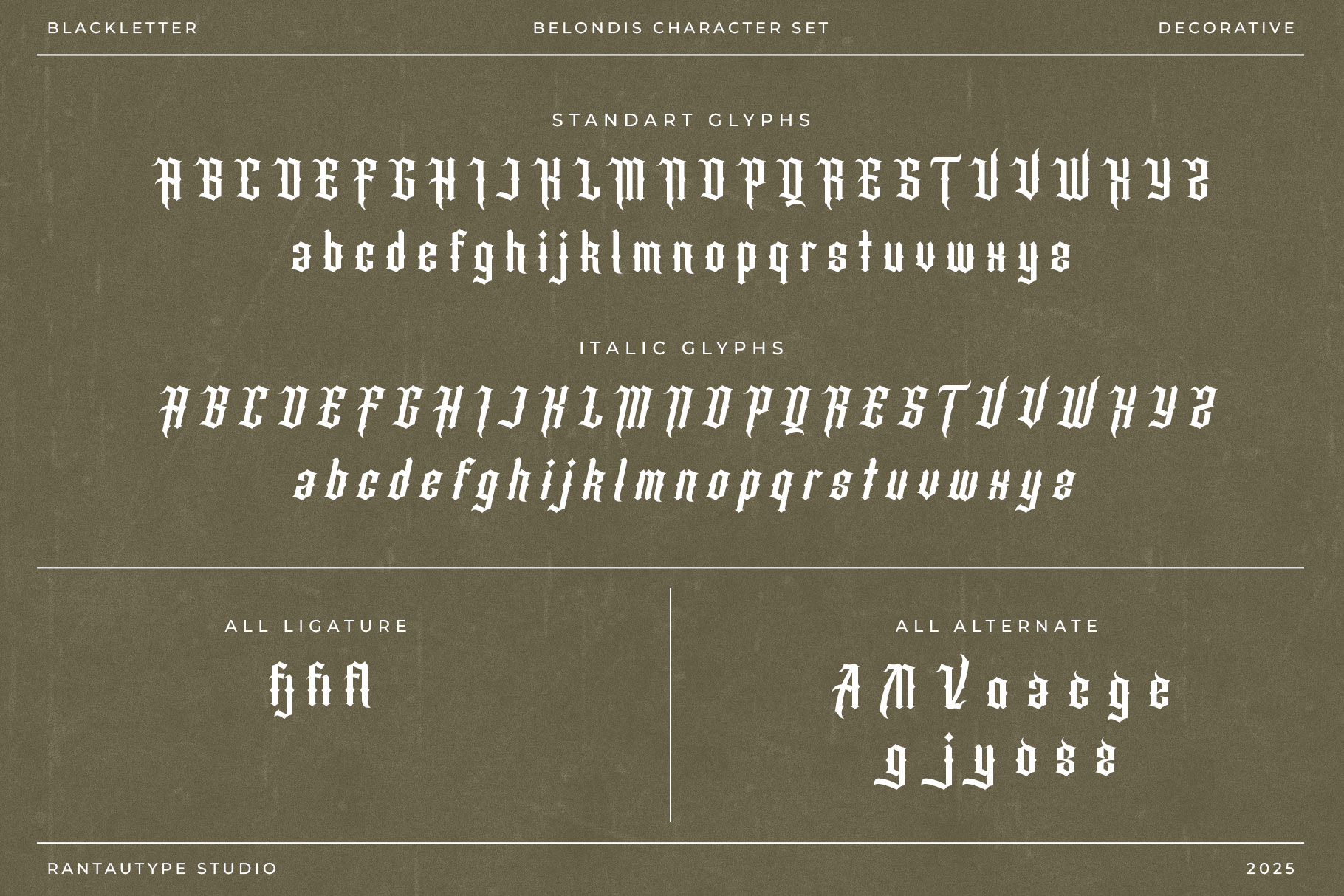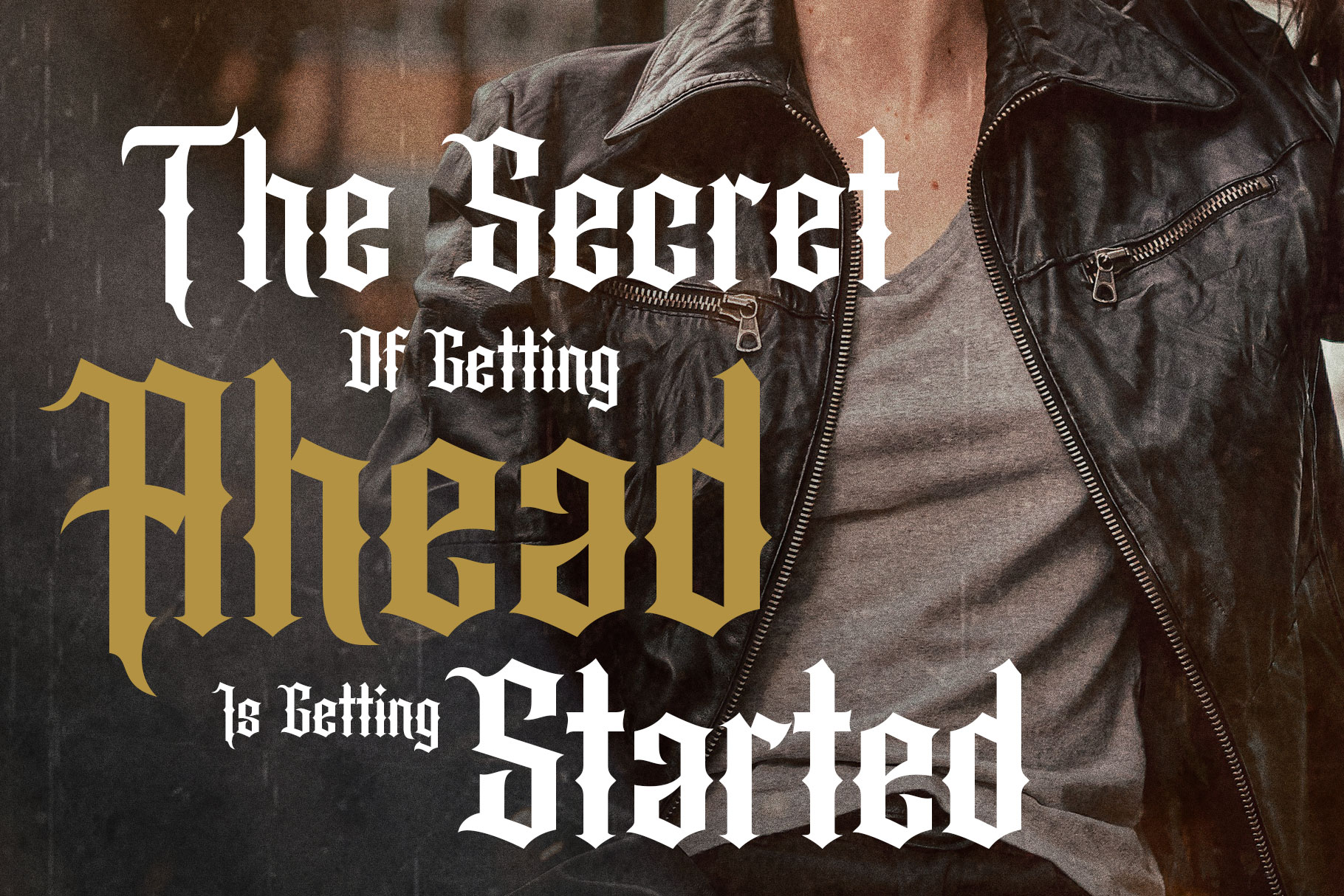
Belondis Blackletter Font
Belondis is Blackletter font carefully crafted by rantautype studio. Belondis is a perfectly choice for any creative endeavor, chic, lifestyle design such as logos, advertisements, stationery, branding project, display and magazine, invitation, corporate brand, product design, label, business project and many other project with decorative touch.